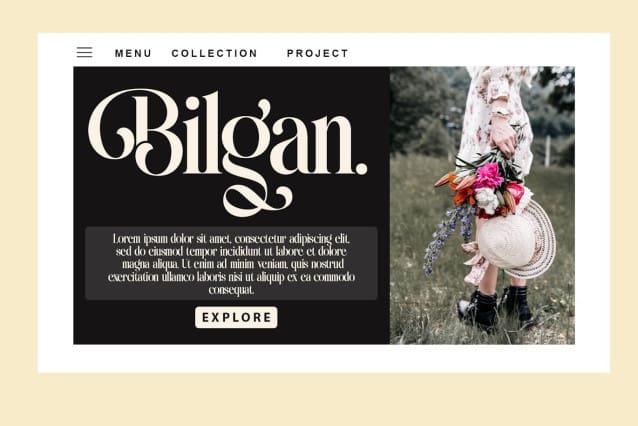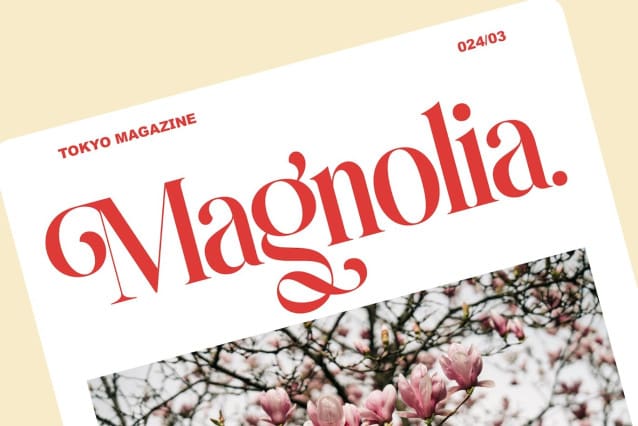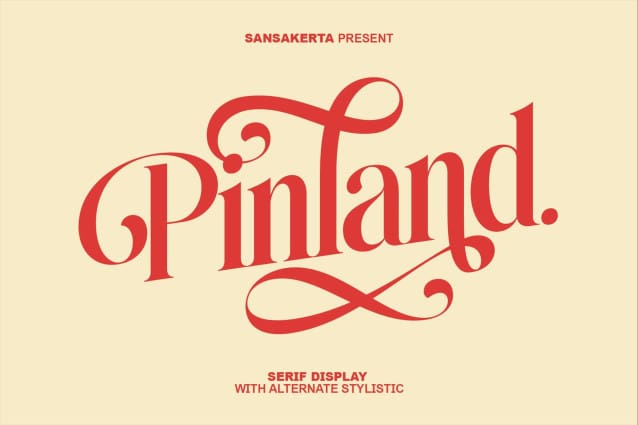
Pinland Font
Pinland Font is an elegant font that has a modern yet retro look. Create bold, beautiful headlines and elegant designs with a vintage feel. George’s contrasting lines and curved terminals give a clean, elegant look to logos, greeting cards, wedding invitations, quotes, advertisements, and more.